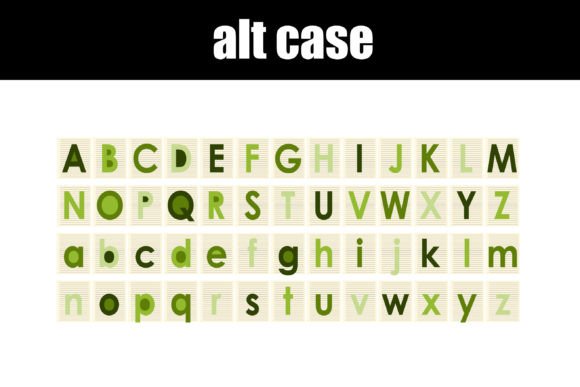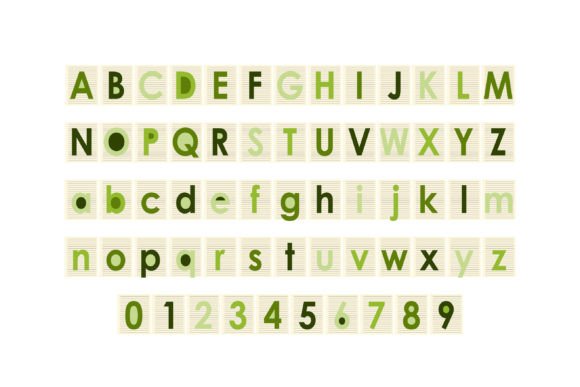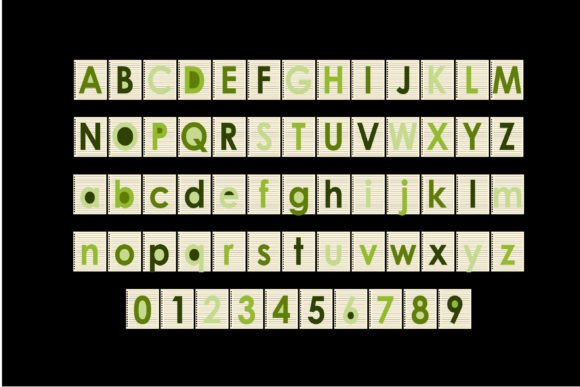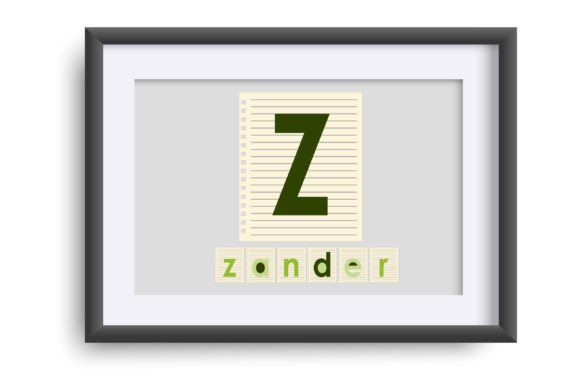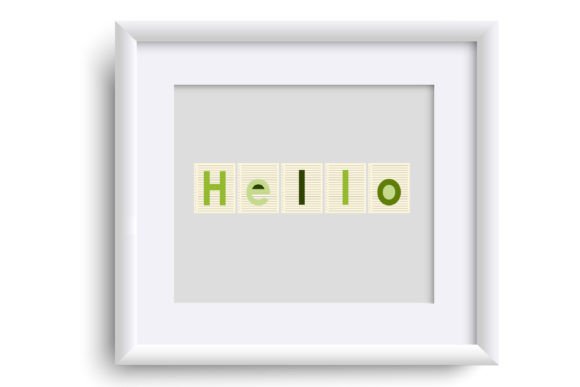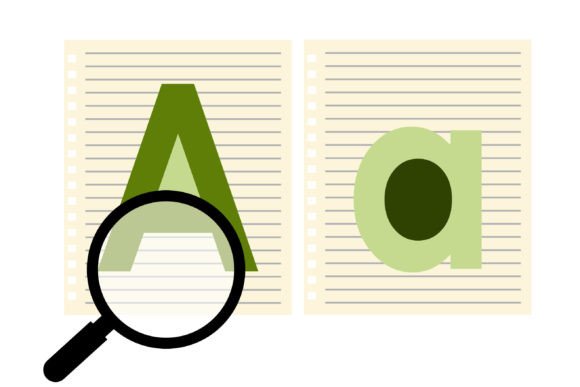
Introduction to Free Reign Font
Free Reign is a modern and unique font that perfectly captures the spirit of St.
Patrickโs Day Its playful shapes and attractive style make it stand out from the crowd, adding a fun and festive touch to any project.
Key Features of Free Reign Font